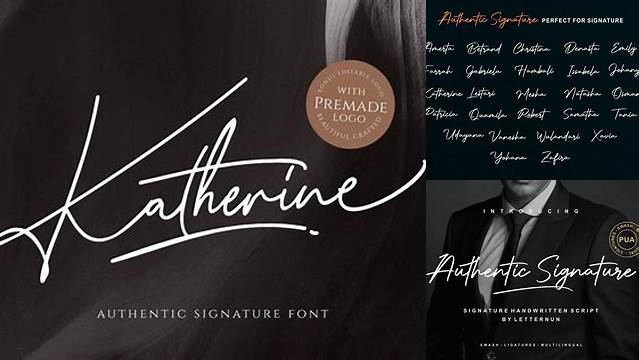
Hey guys! Are you looking to add a personal touch to your projects? Well, you've come to the right place! Nothing screams authenticity quite like a handwritten signature, and using an authentic signature font can give your designs that unique, personal flair. Whether you're working on branding, invitations, or website headers, the right font can make all the difference. In this article, we'll dive deep into the world of authentic signature fonts, exploring where you can find them for free download and how to best use them. So, let's get started and find the perfect font to elevate your creations! We're going to cover everything from the basics of signature fonts to the nitty-gritty of licensing and even some tips on pairing them with other fonts. Trust me, by the end of this, you’ll be a signature font pro!
What is an Authentic Signature Font?
So, what exactly is an authentic signature font? Well, simply put, it's a typeface designed to mimic the look and feel of a real handwritten signature. These fonts often feature flowing lines, natural-looking imperfections, and a personal touch that sets them apart from more generic fonts. An authentic signature font aims to capture the unique character and style of a real signature, making it ideal for projects that need a personal and trustworthy feel. Think about logos, business cards, or even thank you notes – using an authentic signature font can really elevate the design and make it stand out. The best ones often have subtle variations in letterforms and ligatures, just like real handwriting. This helps to avoid that overly-perfect, robotic look that can sometimes plague digital typography. In essence, it’s about bringing a human element to the digital world. Using these fonts can make your message feel more personal and relatable, whether you’re designing a wedding invitation or crafting a brand identity. Plus, the right signature font can convey a sense of sophistication and elegance, making your project feel polished and professional while still retaining that individual touch.
Why Use a Signature Font?
Why should you even bother using a signature font, you ask? Great question! There are tons of reasons why incorporating an authentic signature font can be a game-changer for your designs. First off, it adds a touch of personality and warmth that standard fonts often lack. In a world of sleek, digital designs, a signature font can help you stand out and create a more human connection with your audience. Imagine a beautifully designed website header with a handwritten-style font – it instantly feels more inviting and approachable, right? Moreover, signature fonts are incredibly versatile. They work wonders for branding, lending a sense of authenticity and trust to your brand identity. Think about it: a logo featuring a signature font can feel more personal and memorable than one using a generic sans-serif. Plus, they're perfect for invitations, thank-you notes, and other personal projects where you want to convey a heartfelt message. The handwritten style adds a touch of elegance and sophistication that can't be replicated by other fonts. Beyond aesthetics, using a signature font can also help you create a consistent brand image. Once you've chosen the perfect font, you can use it across all your marketing materials, from your website to your social media graphics, creating a cohesive and recognizable brand identity. This consistency can help build brand recognition and loyalty, making it easier for your audience to connect with your message. So, whether you're a designer, a business owner, or just someone looking to add a personal touch to their projects, signature fonts are definitely worth exploring. They offer a unique way to express your creativity and connect with your audience on a deeper level.
Where to Find Free Authentic Signature Fonts
Okay, so you're sold on the idea of using an authentic signature font. Now, where do you actually find these gems without breaking the bank? Luckily, the internet is brimming with resources offering free downloads. But, and this is a big but, you need to be careful about where you download from. Not all sites are created equal, and you want to make sure you're getting a high-quality font that’s also legally safe to use. One of the best places to start is Google Fonts. They have a fantastic selection of free fonts, including several signature styles that you can use for personal and commercial projects. The great thing about Google Fonts is that they're open-source, meaning you're free to use them however you like without worrying about licensing issues. Another fantastic resource is websites like FontSpace and DaFont. These sites host a vast library of fonts created by independent designers, many of whom offer their fonts for free. However, it’s crucial to check the licensing terms for each font before you use it, as some may only be free for personal use. For more curated collections, check out sites like Creative Market and Envato Elements. While these platforms primarily offer premium fonts, they often have free font packs or weekly freebies that can include signature styles. Signing up for their newsletters can keep you in the loop about these deals. Also, don't forget to explore smaller font foundries and individual designers' websites. Many talented creators offer free fonts as a way to showcase their work. You might stumble upon some real hidden treasures this way! Just remember to always double-check the license before using any font, no matter where you download it from. Understanding the licensing terms will save you from potential legal headaches down the road and ensure you're using the font ethically. So, go forth and explore the vast world of free fonts, but always be a responsible font user!
Tips for Choosing the Right Signature Font
Choosing the right signature font can feel a bit overwhelming, especially with so many options out there. But don't worry, guys, I'm here to help! Here are a few tips to keep in mind to make the selection process a little smoother. First and foremost, consider the overall tone and style of your project. Are you going for a sophisticated and elegant vibe? Or something more playful and casual? The font you choose should align with the message you're trying to convey. A formal event invitation will likely call for a different font than, say, a fun and quirky blog header. Think about the legibility of the font as well. While a fancy, swirly font might look beautiful, it won't do you much good if people can't actually read it. Make sure the font is clear and easy to decipher, especially for important text like headings and titles. The weight and thickness of the font can also make a big difference. A thin, delicate font might look elegant, but it could get lost on a busy background. A bolder font, on the other hand, will stand out more but could feel too heavy if overused. Consider the font pairing too. Signature fonts are often best used in conjunction with simpler, more neutral fonts for body text. Pairing a script font with a sans-serif or a serif font can create a nice contrast and improve readability. Play around with different combinations to see what works best for your project. Don't forget to test the font in different sizes and contexts. What looks great on a large poster might not be as effective on a small business card. Print out samples or create mockups to see how the font looks in different scenarios. And finally, trust your gut! Ultimately, the best signature font is the one that feels right for your project. Don't be afraid to experiment and try out different options until you find the perfect fit. With a little bit of thought and effort, you'll be sure to find a font that adds that special touch to your designs.
How to Pair Signature Fonts with Other Fonts
Okay, let's talk about font pairing – a crucial skill for any designer! Using an authentic signature font can add a ton of personality to your project, but it's rare that you'll want to use it for all your text. That's where font pairing comes in. The goal is to create a harmonious balance between your signature font and other fonts, ensuring that your design is both visually appealing and easy to read. One of the most common and effective strategies is to pair a script or signature font with a clean, simple sans-serif font. Sans-serif fonts, like Helvetica, Arial, or Open Sans, are known for their legibility and modern feel. They provide a nice contrast to the flowing lines of a signature font, creating a visually pleasing balance. For example, you might use a signature font for your logo or headings and a sans-serif font for your body text. Another popular option is to pair a signature font with a classic serif font, like Times New Roman or Georgia. Serif fonts have small strokes or